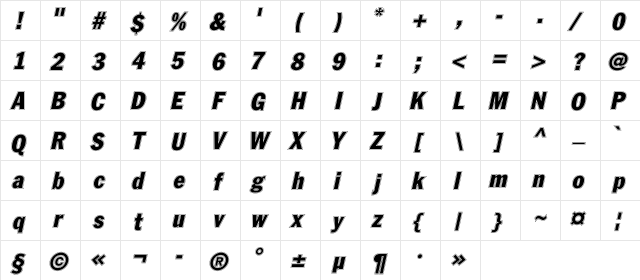
FagotCondConturC Italic Font Preview
Design Context for FagotCondConturC Typeface
FagotCondConturC is a composed and adaptable typeface that performs quietly and consistently across a wide range of design contexts. The slanted form adds forward momentum and visual energy. Its narrow stance lets it pack a punch even in space-constrained designs.
Pro Tip: Try FagotCondConturC for annotation and caption copy alongside an upright companion — the contrast in angle creates a dynamic but ordered typographic system.